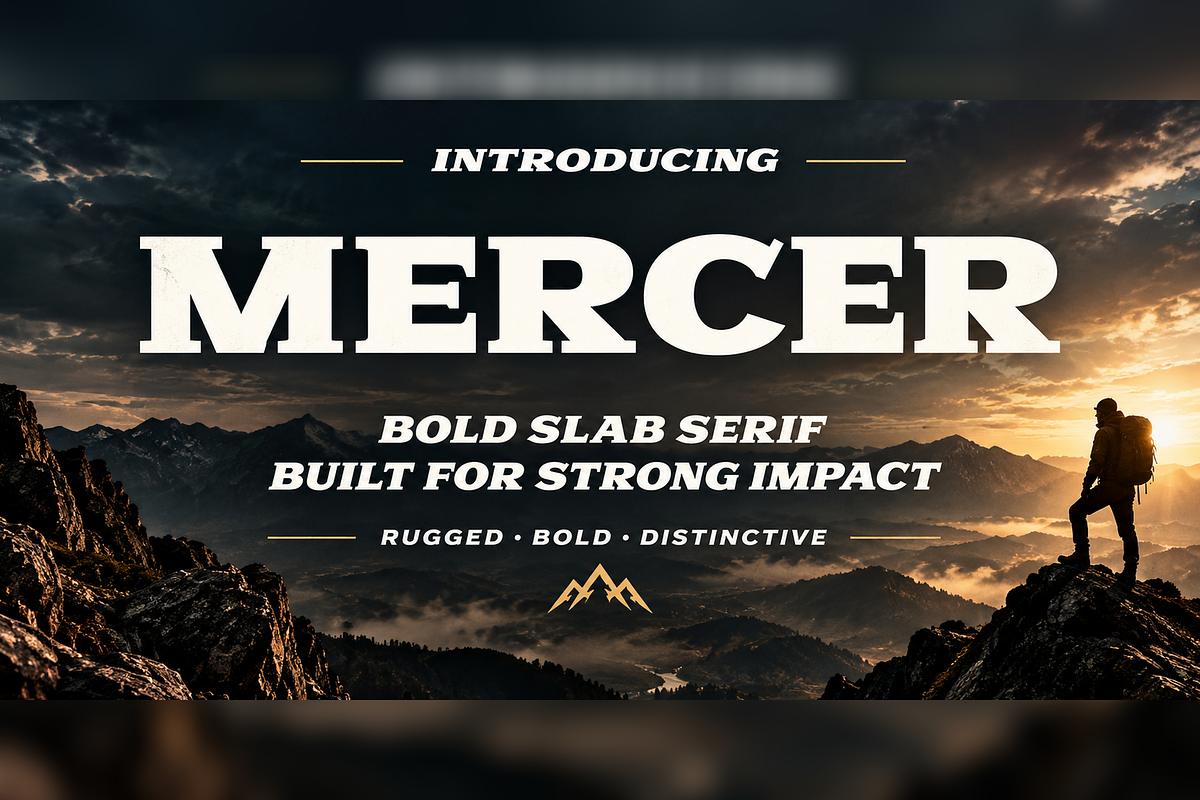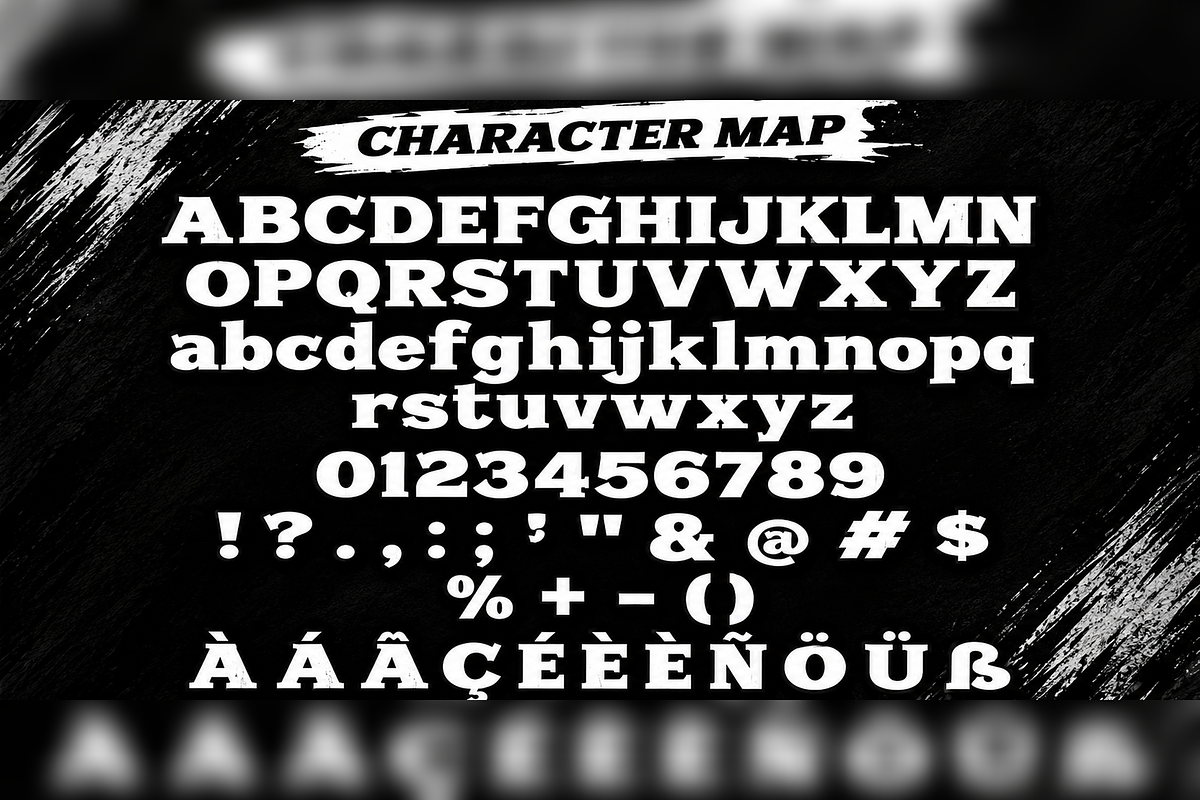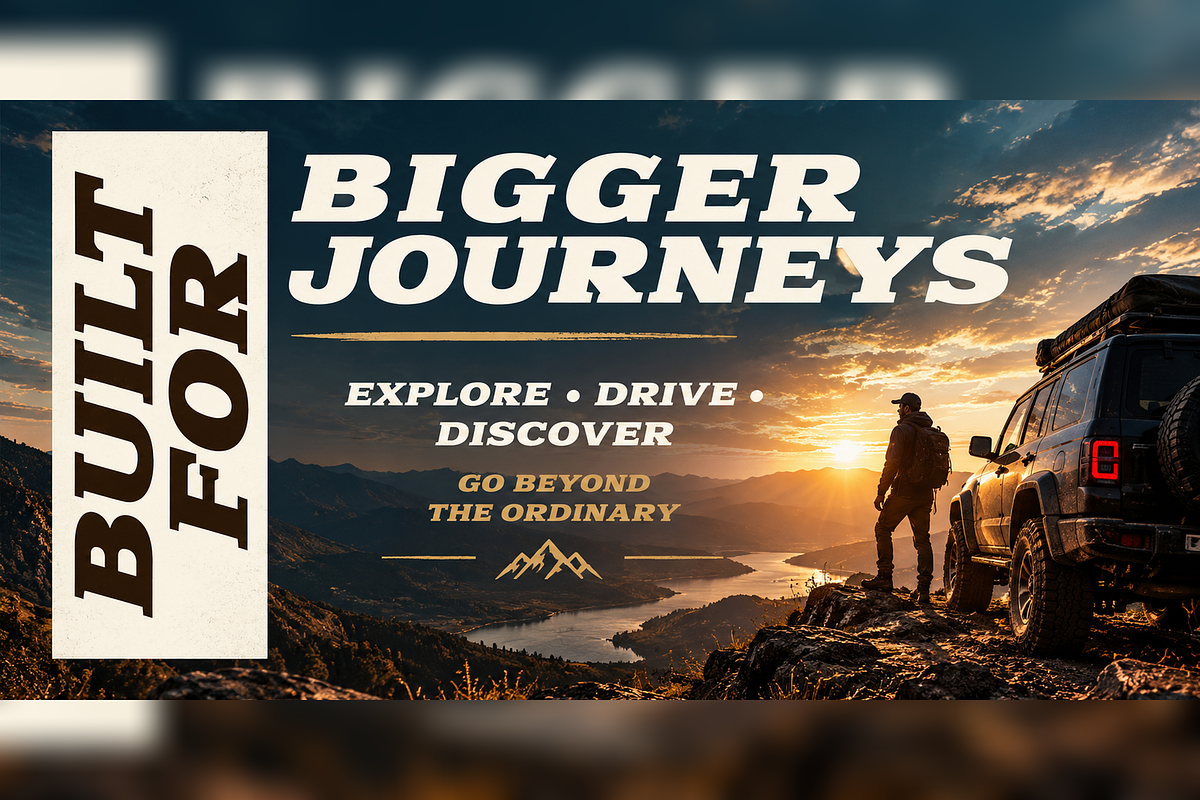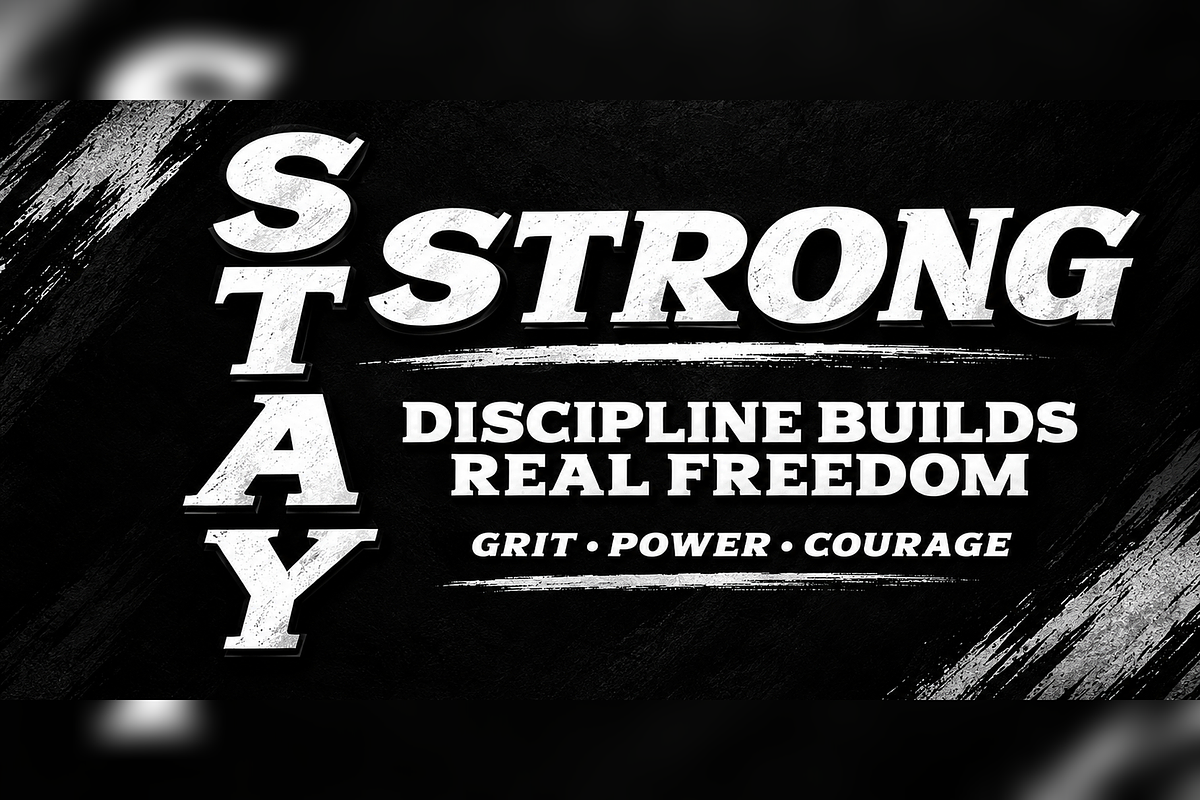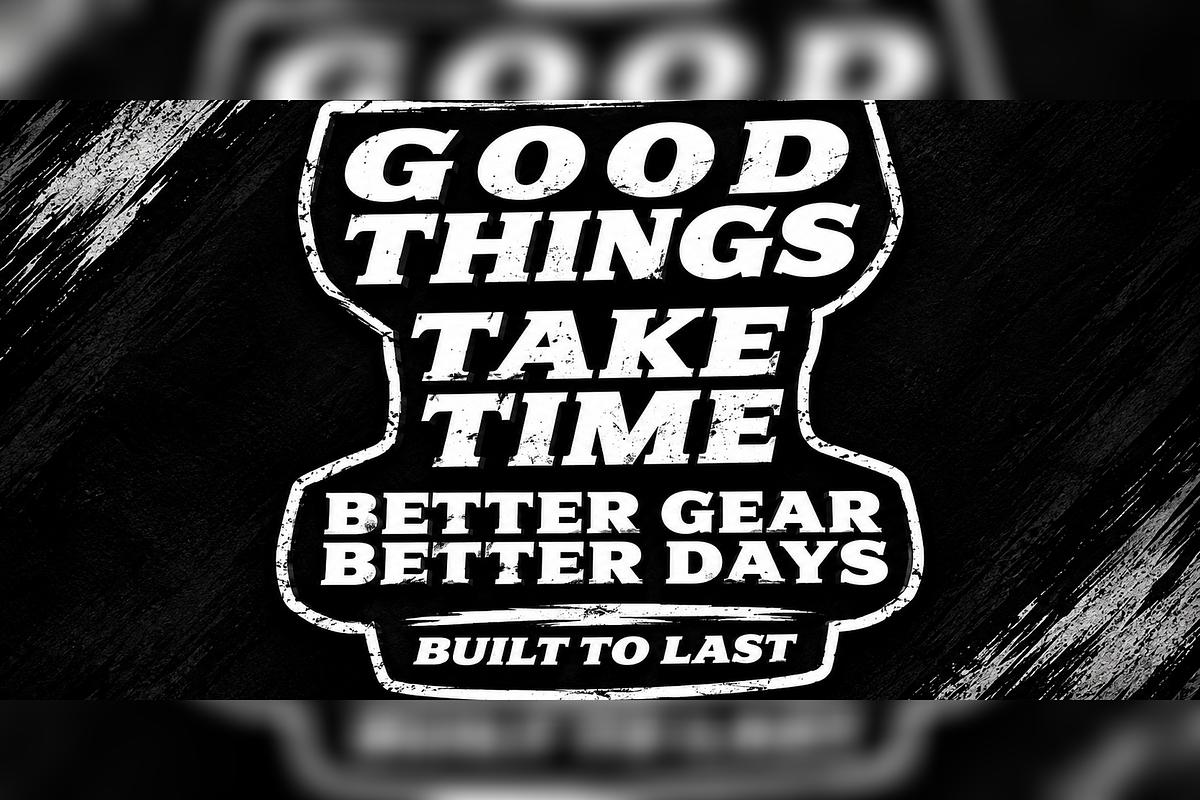
Mercer Rugged Bold Slab Serif
MERCER is a bold and powerful display serif typeface with a rugged vintage character. Featuring heavy letterforms, strong slab-like serifs, sharp details, and a distinctive athletic-inspired presence, MERCER is designed to make headlines stand out.
Perfect for logos, sports branding, apparel, posters, badges, packaging, labels, merchandise, typography designs, and motivational graphics. Its bold structure combines a classic serif foundation with a tough, modern attitude, making MERCER a versatile choice for projects that need strength, confidence, and character.
Regular & Slant